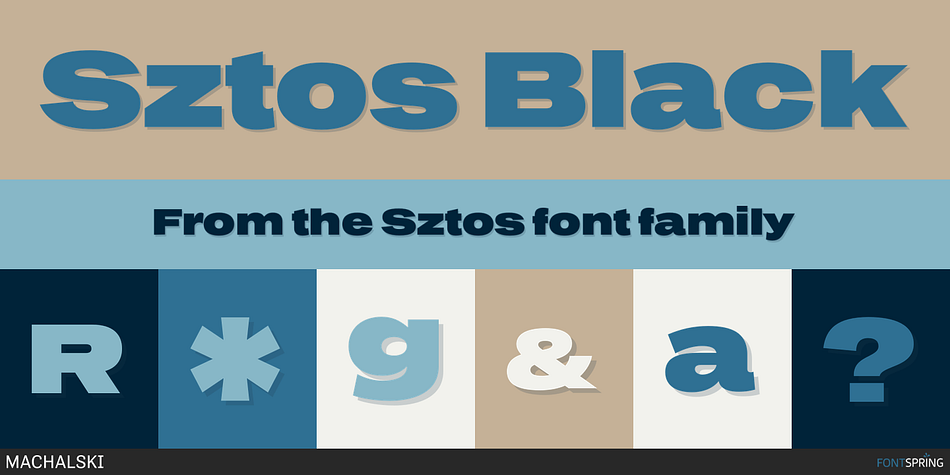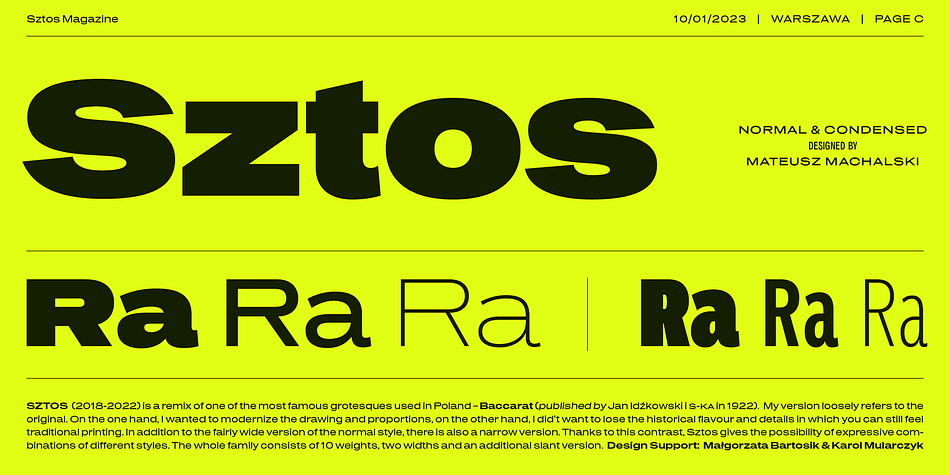
Sztos Black
Designed by Mateusz Machalski, Sztos is a sans serif font family. This typeface has forty styles and was published by MACHALSKI.
Sztos (2018-2022) is a remix of one of the most famous grotesques used in Poland – Baccarat (published by Jan Idźkowski i S-ka in 1922). My version loosely refers to the original. On the one hand, I wanted to modernize the drawing and proportions, on the other hand, I did’t want to lose the historical flavour and details in which you can still feel traditional printing. In addition to the fairly wide version of the normal style, there is also a narrow version. Thanks to this contrast, Sztos gives the possibility of expressive combinations of different styles. The whole family consists of 10 weights, two widths and an additional slant version. Design Support: Małgorzata Bartosik, Karol Mularczyk